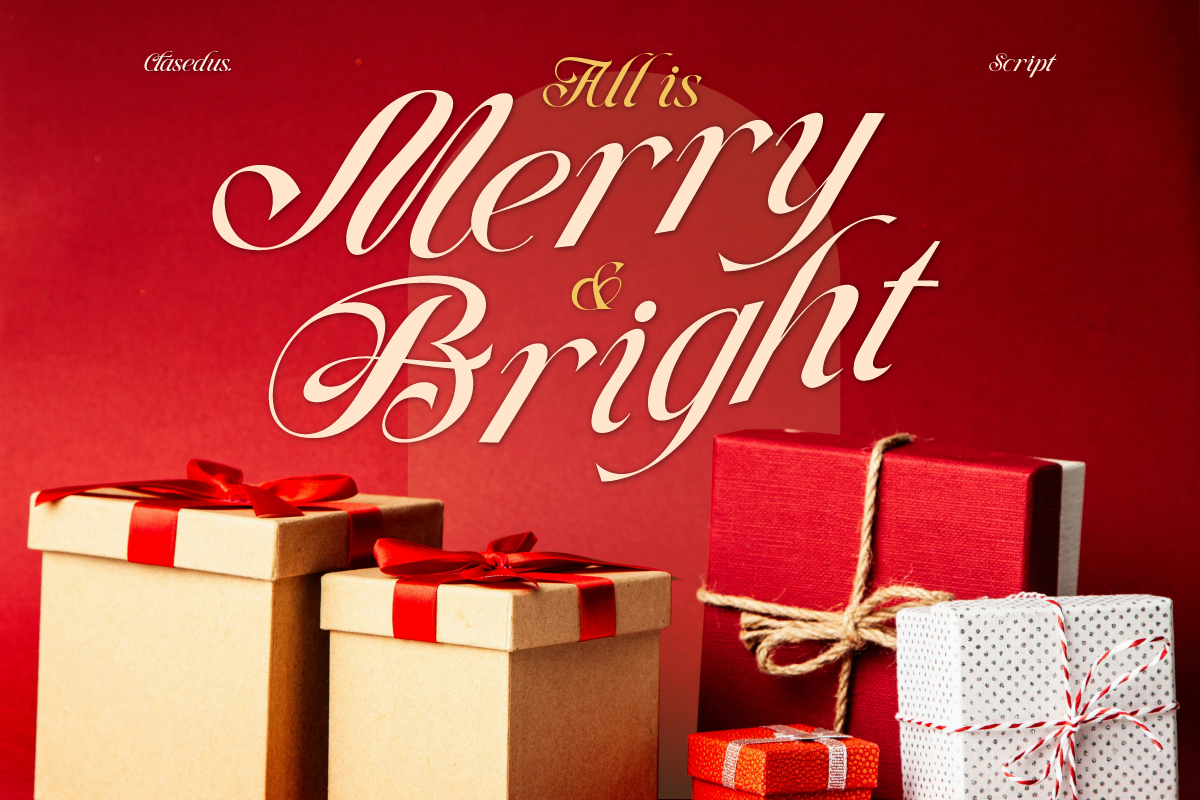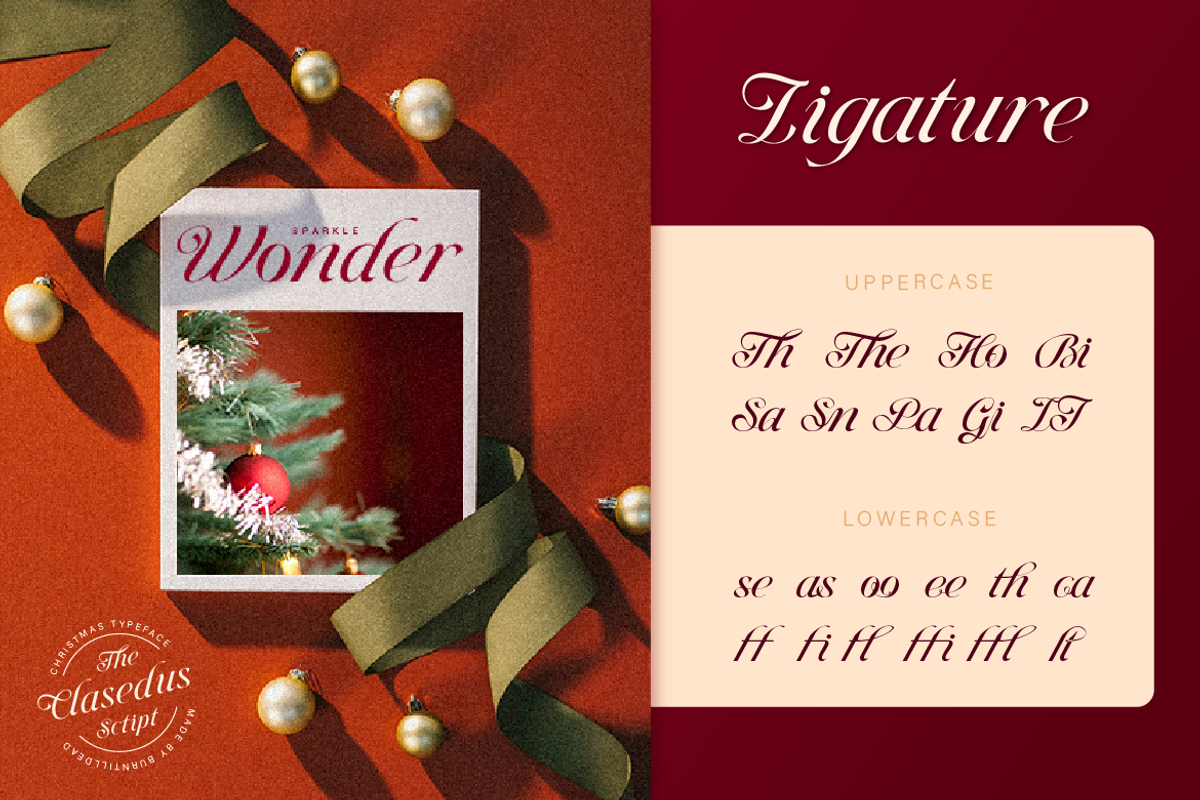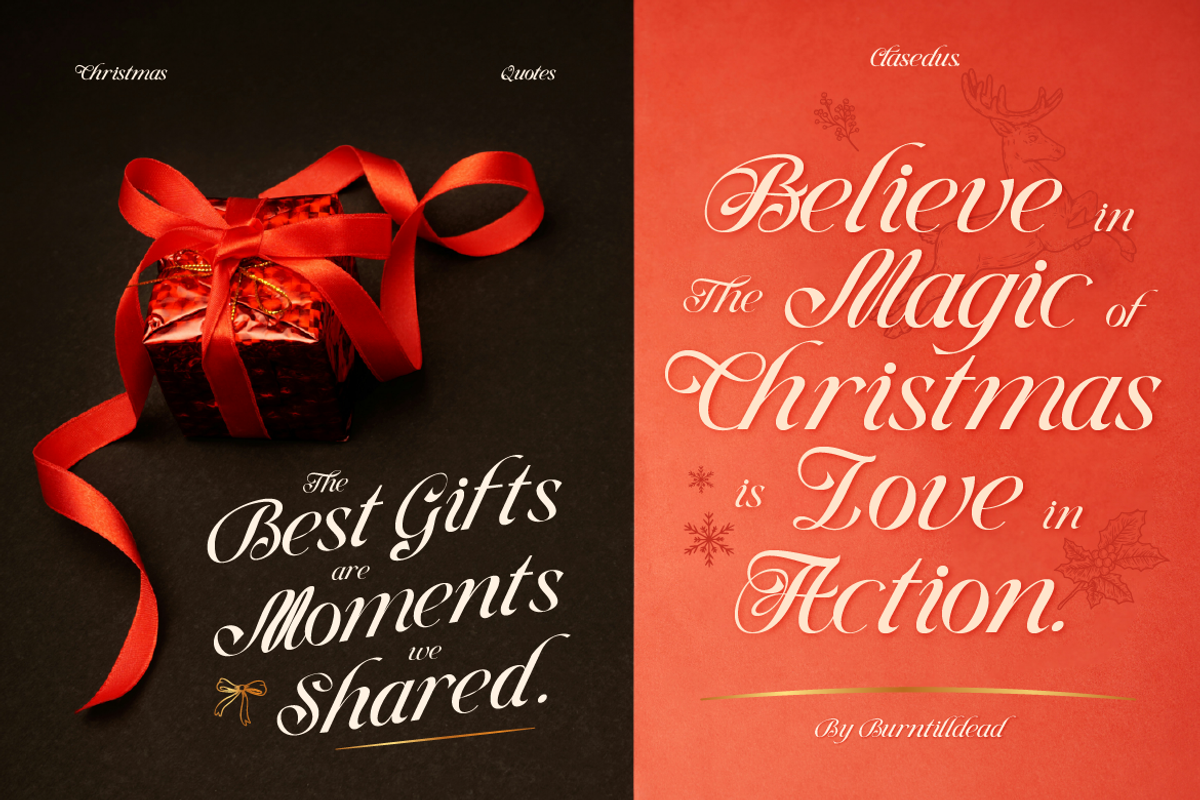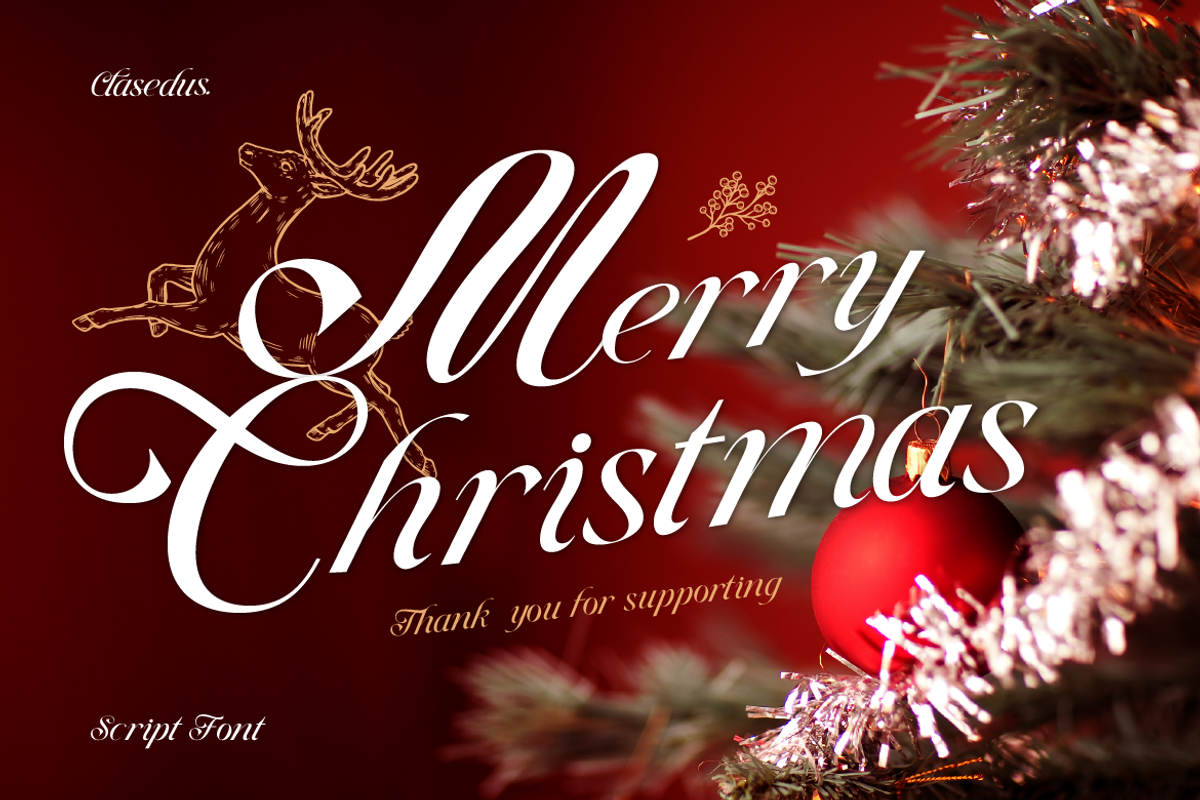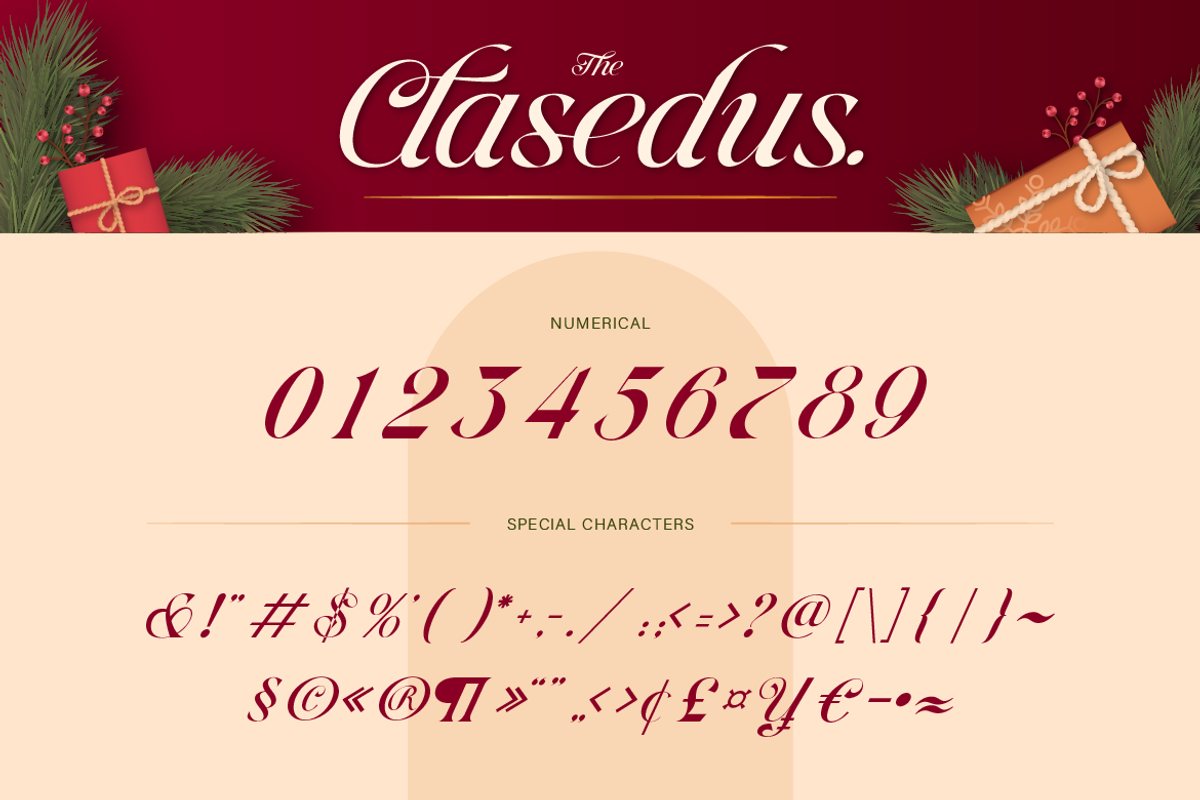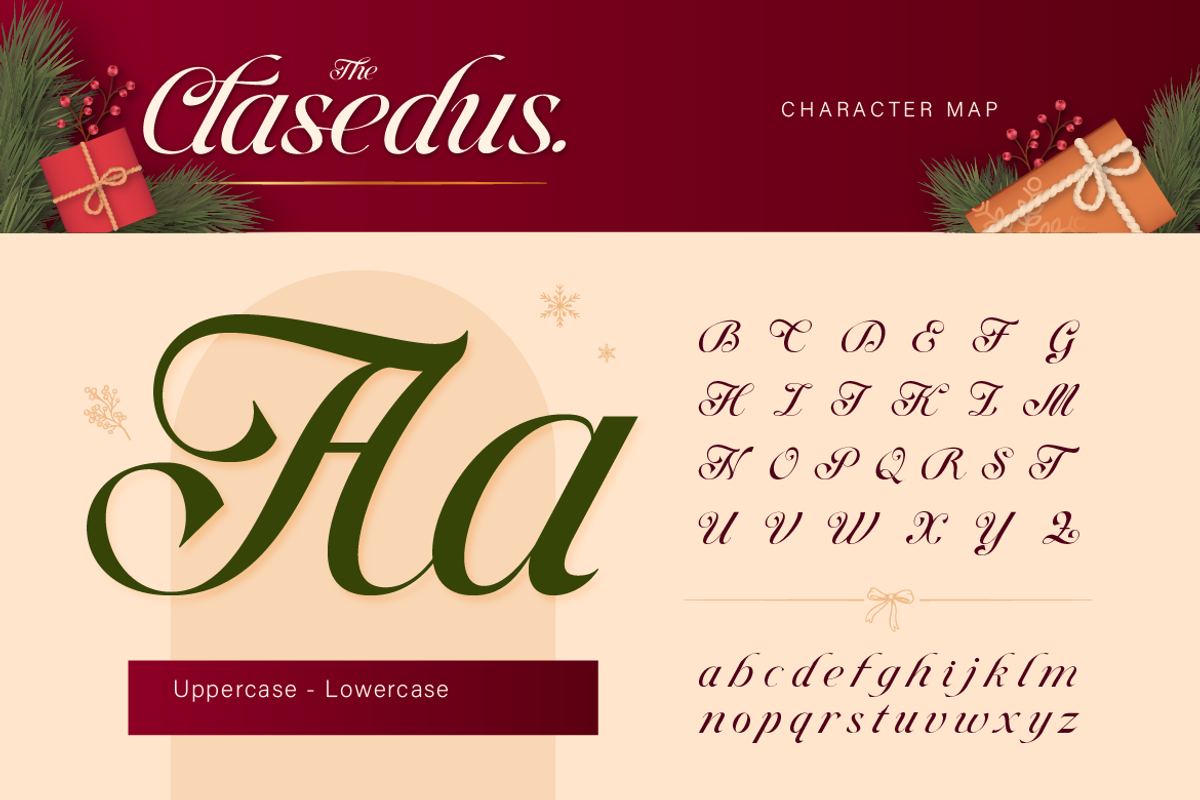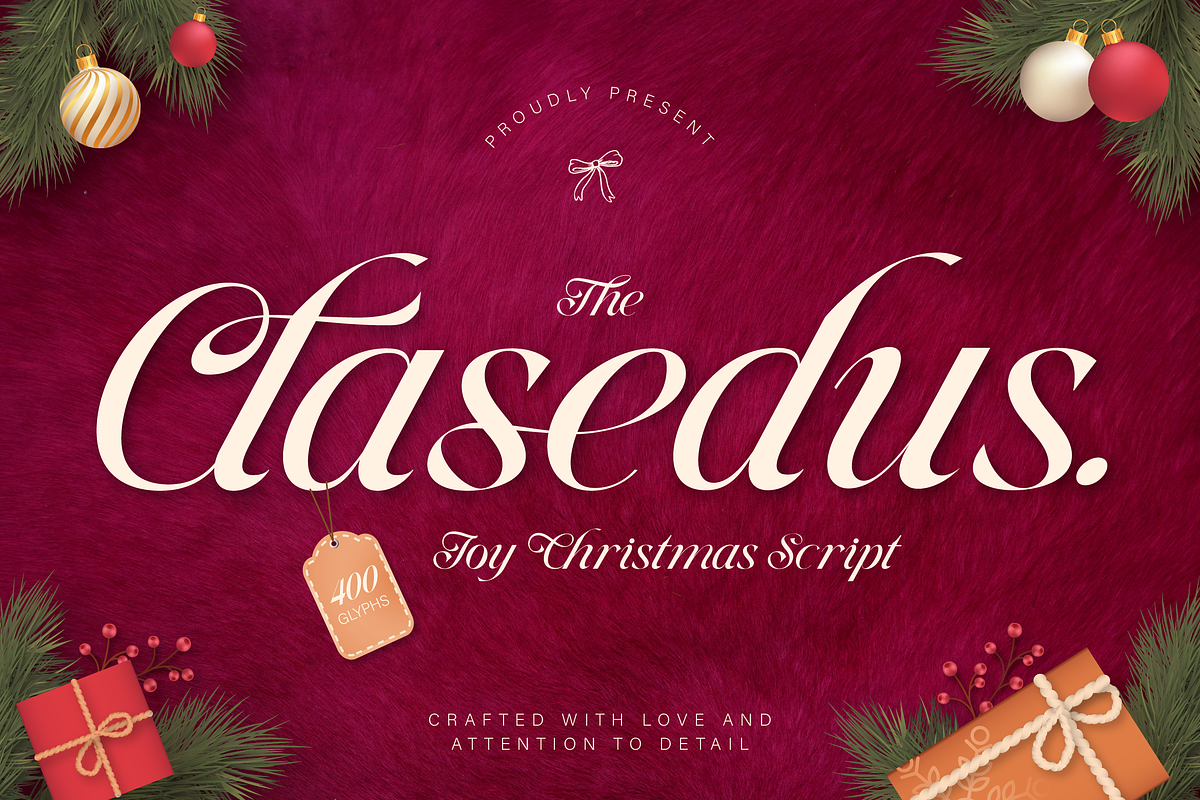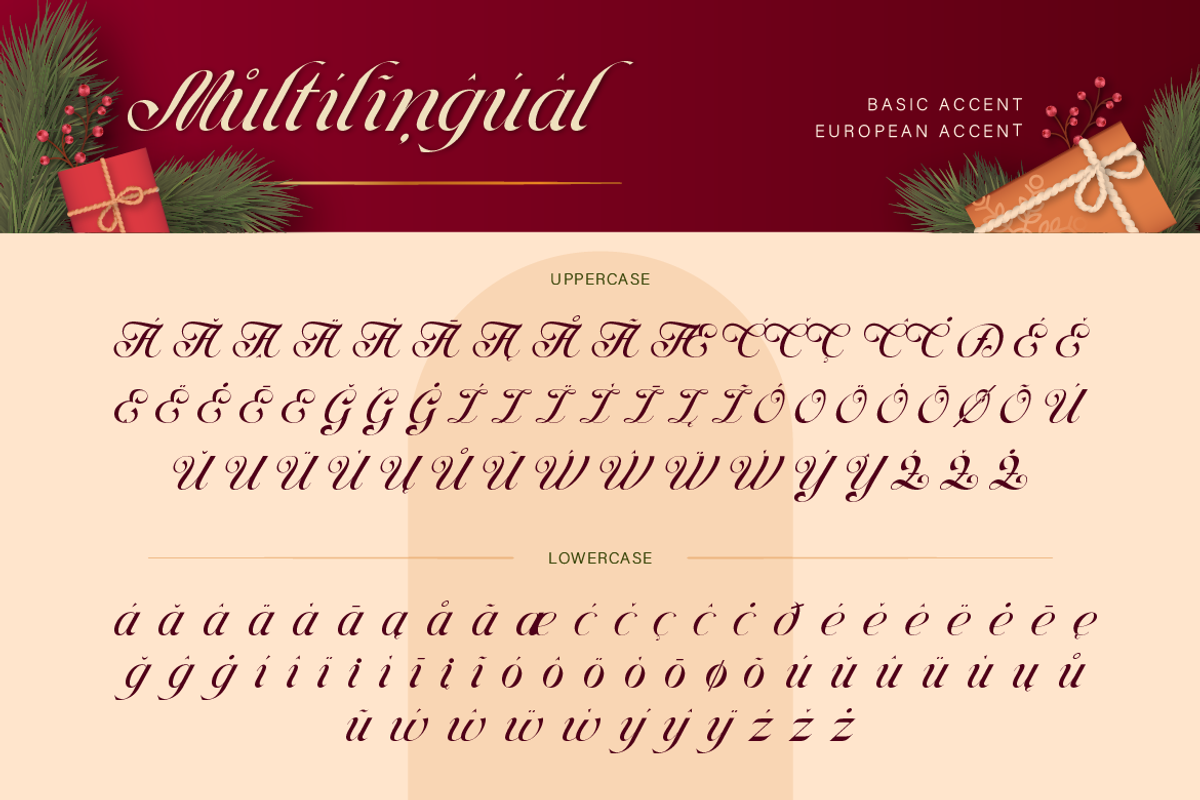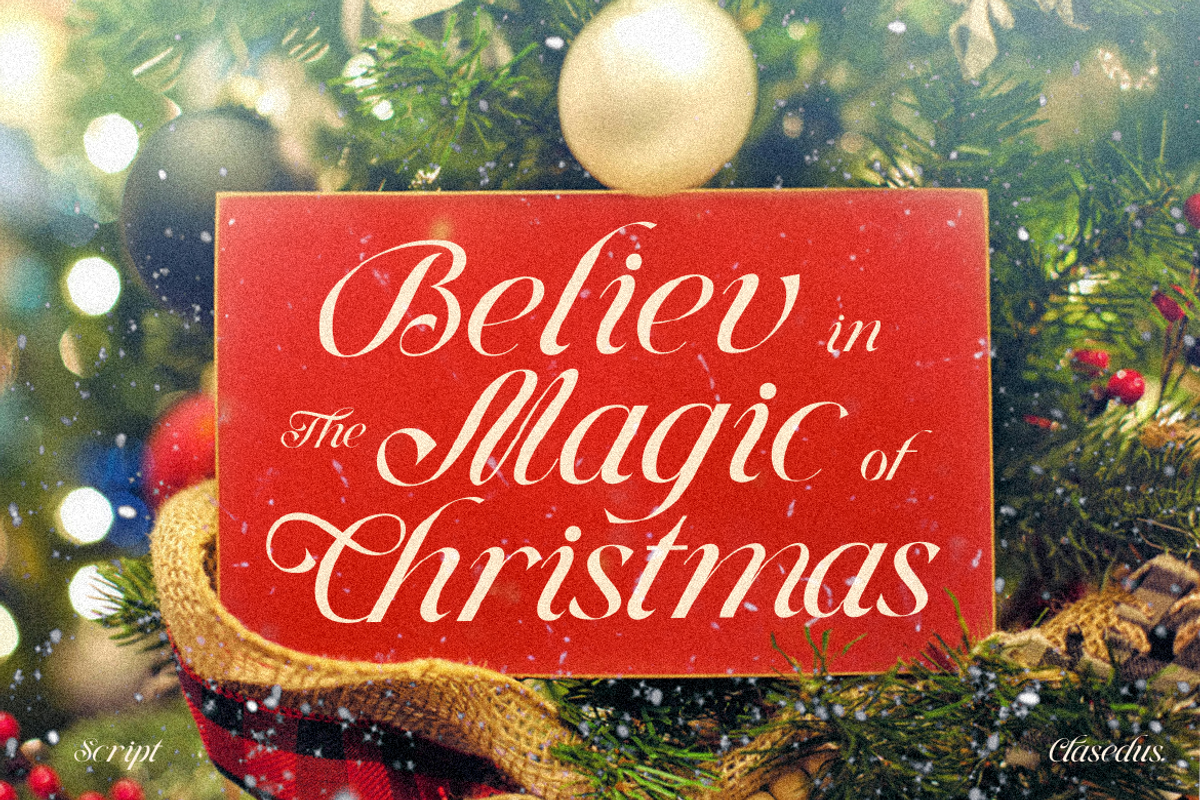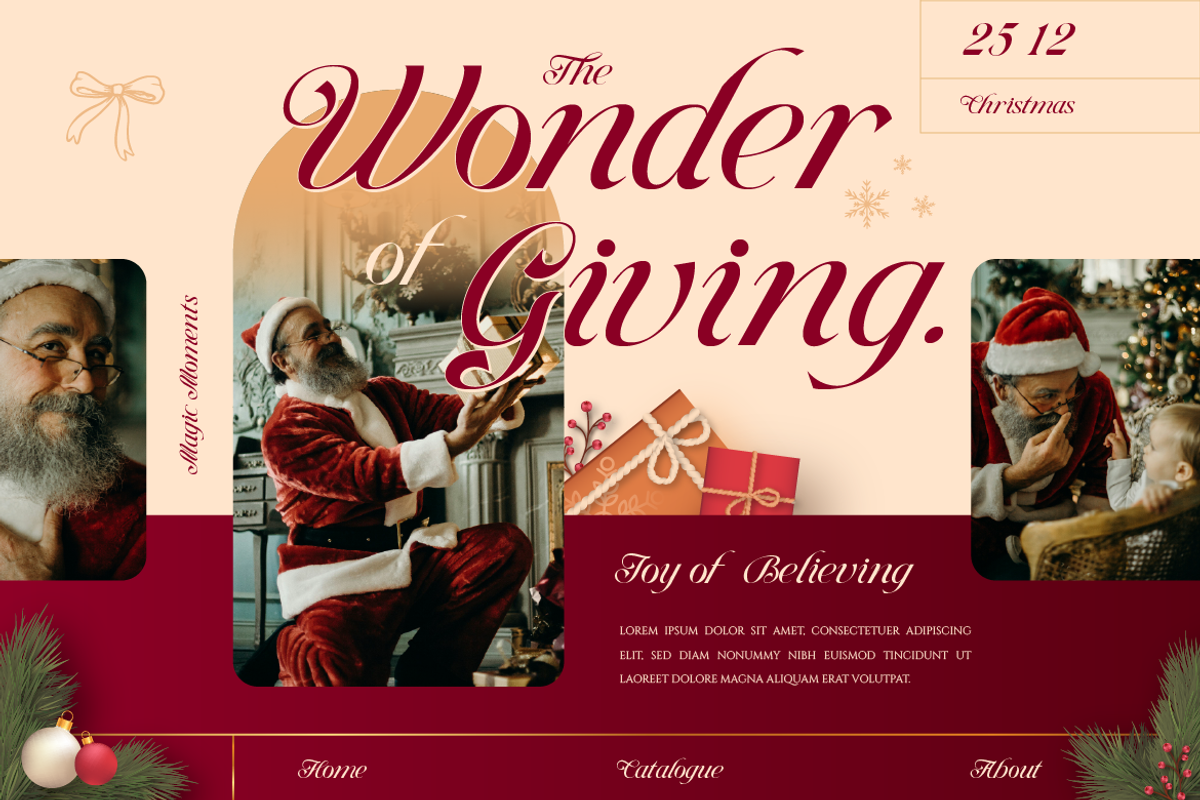
The Clasedus
Christmas is getting closer and holiday season has arrived. So we’re gonna introducing a script font that perfect for Christmas, The Clasedus. A beautiful blend of elegance and festive spirit. Feels the warmth of The Clasedus to people you loves. perfect for invitation, greeting cards or any seasonal design, bring touch of nostalgic and heartfelt, joyful touch to your holiday projects.
- A - Z set (Uppercase & Lowercase)